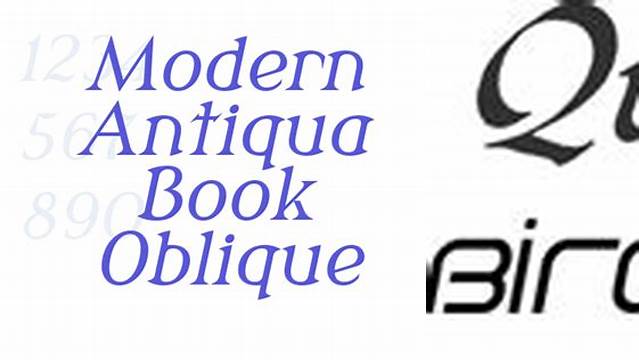
Hey everyone! Are you looking for the perfect font to jazz up your bookkeeping projects? Well, you've come to the right place! Today, we're diving deep into the world of bookkeeping oblique fonts and, even better, how you can snag some of them for free! These fonts can bring a unique and professional touch to your financial documents, helping you create a more organized and visually appealing look. We'll explore what makes these fonts special, where to find them, and how to best use them. So, buckle up, grab your favorite beverage, and let's get started on this font-tastic journey! We will delve into the specifics, exploring different font styles and their suitability for various bookkeeping tasks. We'll also discuss the advantages of using oblique fonts, their visual appeal, and the best practices for font selection. Whether you're a seasoned bookkeeper or just starting out, this guide will equip you with the knowledge and resources you need to elevate your projects. Our main focus will be on understanding the nuances of bookkeeping oblique fonts, their characteristics, and their impact on the overall presentation of financial documents. This will involve a detailed analysis of font types, their readability, and their effectiveness in conveying information clearly and concisely. The goal is to provide you with a comprehensive overview, empowering you to make informed decisions when choosing and using these fonts. We will also consider the importance of font licensing, ensuring that you select fonts that align with your usage requirements. Ultimately, our aim is to transform your bookkeeping endeavors with the right font choices, enhancing both the aesthetic and functional aspects of your work. Are you ready? Let's begin!
H2: What Exactly Are Bookkeeping Oblique Fonts, Anyway?
Alright, let's get down to brass tacks: What exactly are bookkeeping oblique fonts? Well, simply put, they're a type of font that leans or slants, giving a dynamic and slightly more informal feel than standard upright fonts. They're not the same as italic fonts, which are typically designed with a different character structure, although they share some visual similarities. The obliqueness is achieved by mechanically slanting the upright font, creating a different aesthetic. This subtle slant can add visual interest and a sense of movement to your documents, making them more engaging. Bookkeeping oblique fonts are specifically designed or adapted for use in financial documents. This means they often balance readability with a touch of personality. The beauty of these fonts lies in their ability to improve the readability of financial data. The inclination adds visual appeal to the overall appearance of your bookkeeping reports. Oblique fonts enhance readability and help break up the monotony of plain text. They can be a great alternative to standard fonts, making your financial documents stand out. These fonts are specifically chosen to meet the need for clarity while adding visual interest, making complex financial data more accessible and engaging. This balance makes them ideal for various bookkeeping tasks, from creating invoices and financial statements to designing presentations and other documents. The goal is to provide readers with information in an aesthetically pleasing way. Using an oblique font can make financial data more digestible. Their use can create documents that are both easy to read and visually engaging. It is also important to remember that these fonts can make documents more professional and eye-catching.
H2: Why Use Oblique Fonts for Bookkeeping? The Perks!
So, why bother with bookkeeping oblique fonts in the first place? There are several compelling reasons! Firstly, they can enhance readability, especially in long financial reports or documents packed with numbers. The slight slant can help the eye distinguish between characters more easily, reducing strain and improving comprehension. Secondly, they add a touch of visual interest. Let's face it, financial documents can sometimes be a bit, well, boring. Oblique fonts can liven things up a bit, making your work more appealing and engaging for your clients or colleagues. Thirdly, oblique fonts can subtly convey a sense of professionalism and attention to detail. They show that you're willing to go the extra mile to create a polished and well-presented document. Finally, using oblique fonts can help you stand out from the crowd. In a world of standard Arial and Times New Roman, choosing a unique font can make your work memorable and professional. Beyond aesthetics, the enhanced readability of these fonts directly contributes to better information processing. The subtle visual distinction can significantly improve the ability to quickly understand figures, which is essential in finance. When reading financial reports, precision and speed are crucial. Oblique fonts make financial data more digestible and improve the user experience. Oblique fonts can enhance the overall look and feel of your bookkeeping documents. Oblique fonts can also make your financial documents memorable. Their visual appeal makes financial reports more engaging. Bookkeeping oblique fonts are a great way to make your financial documents look professional. These fonts help to make your financial documents stand out.